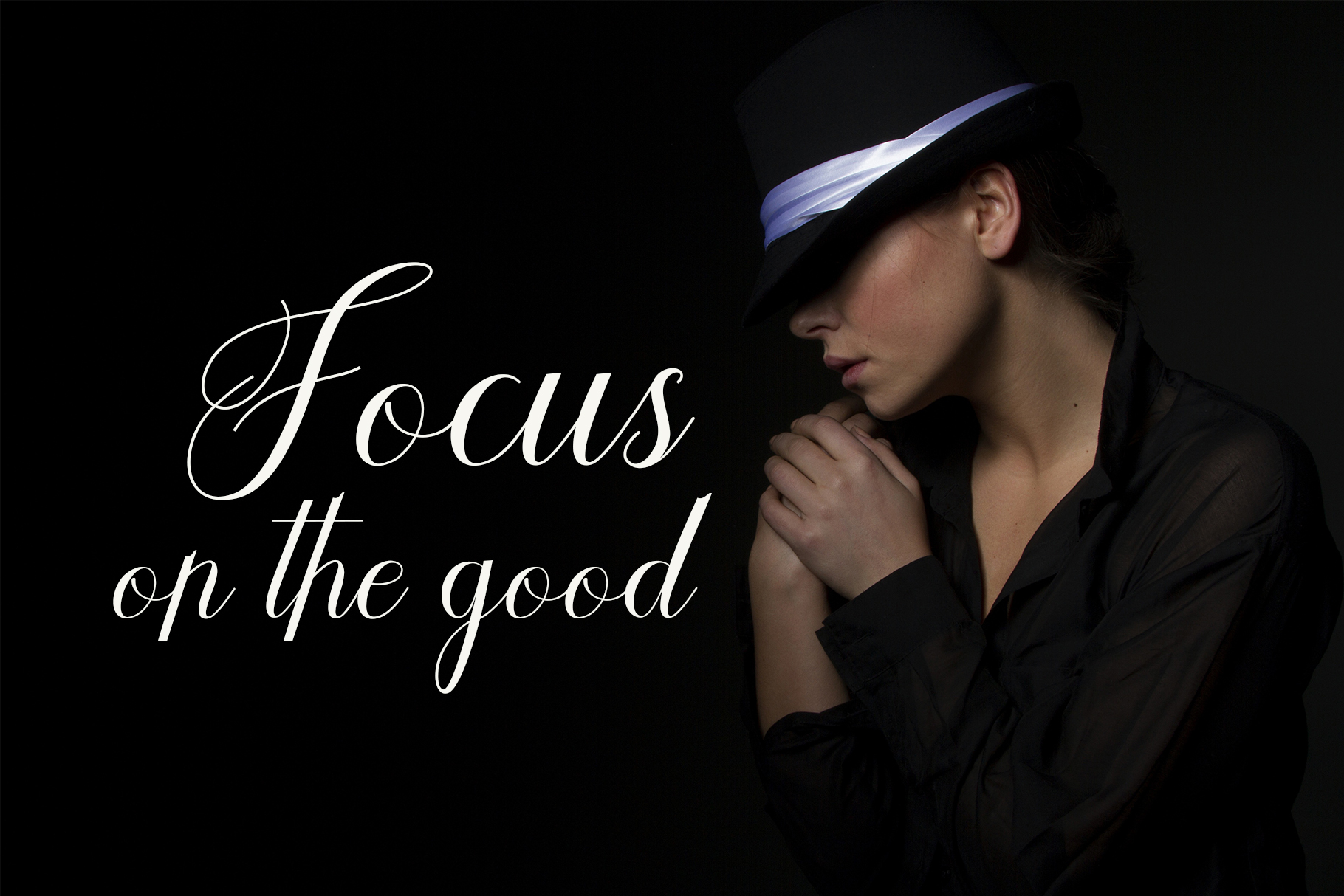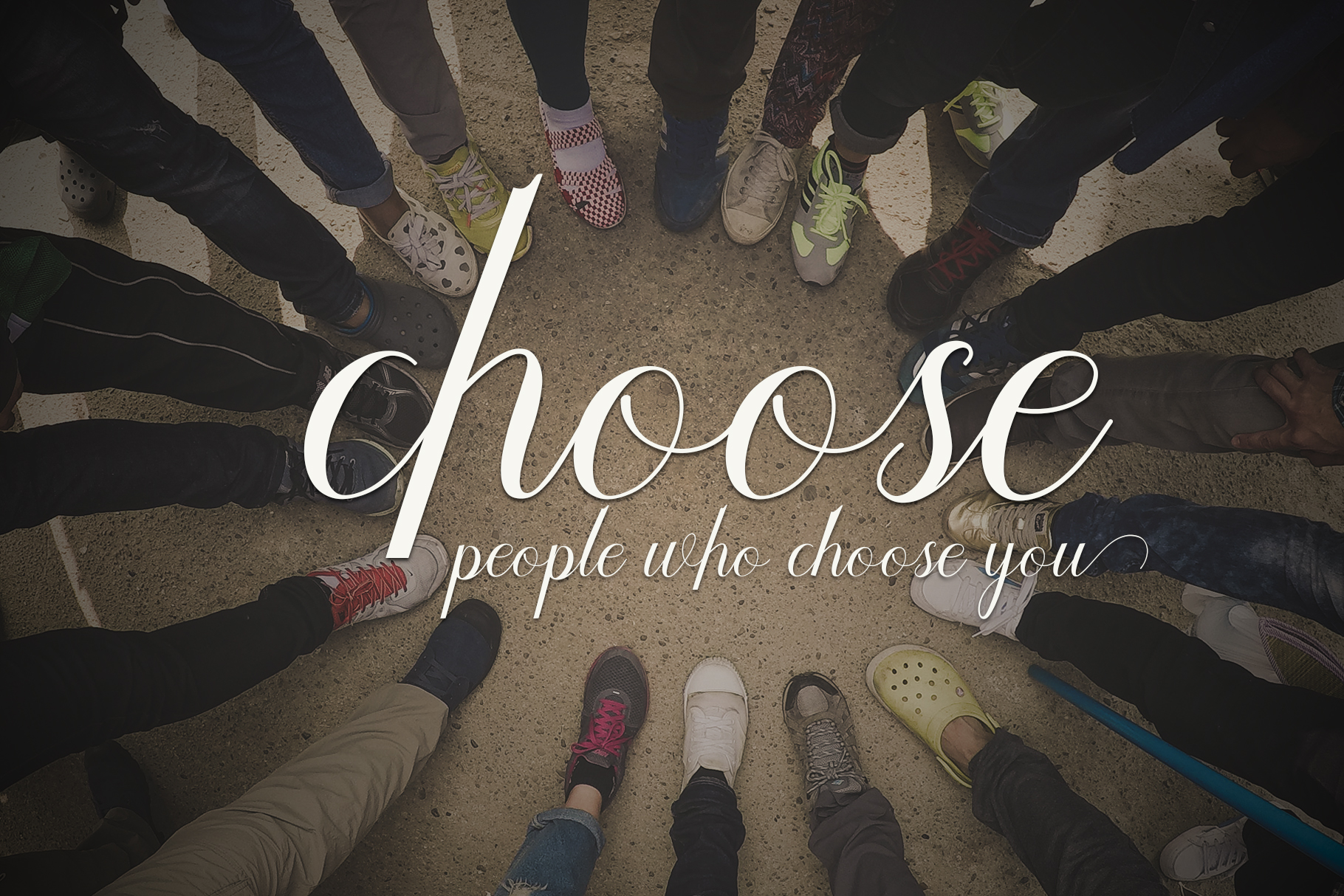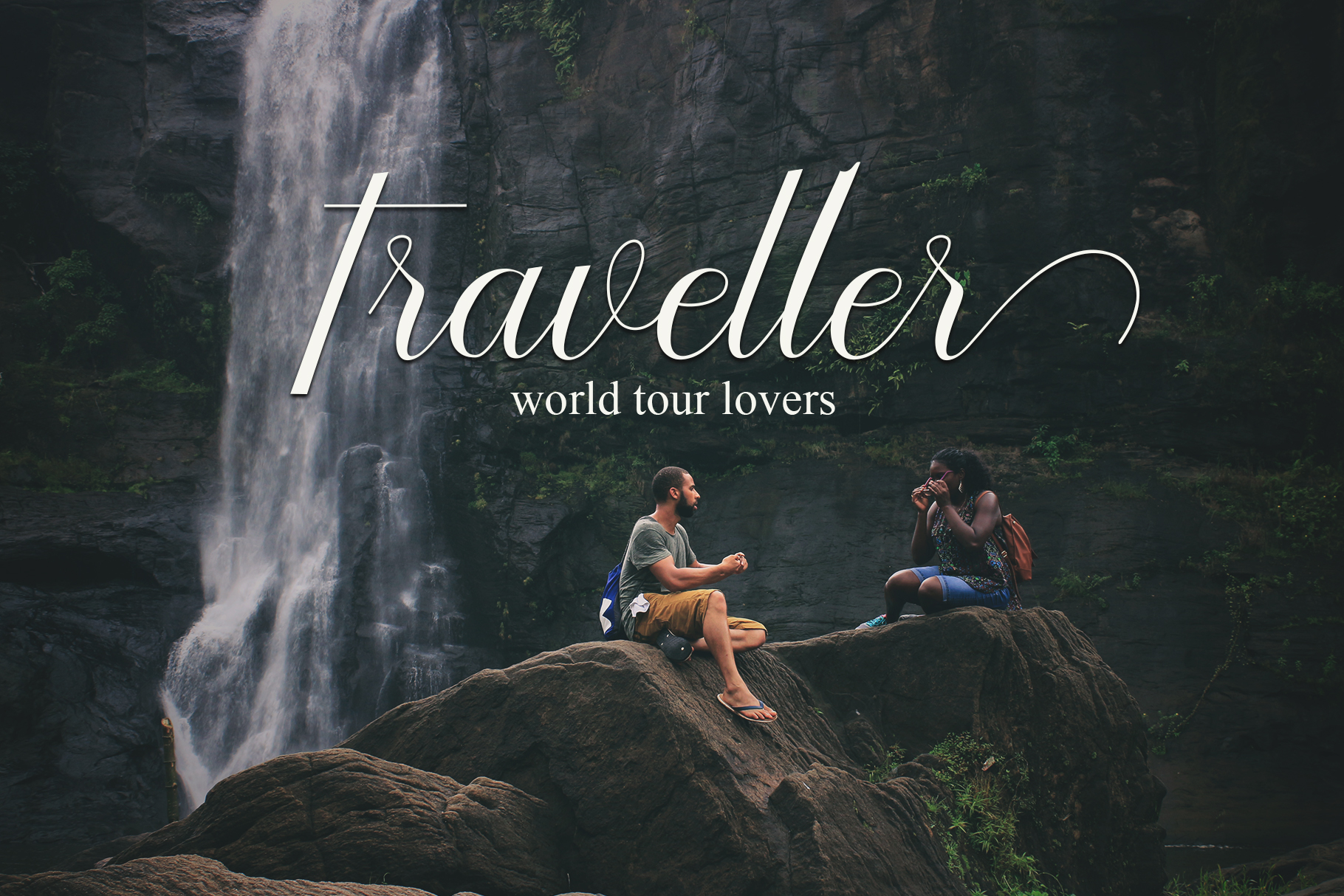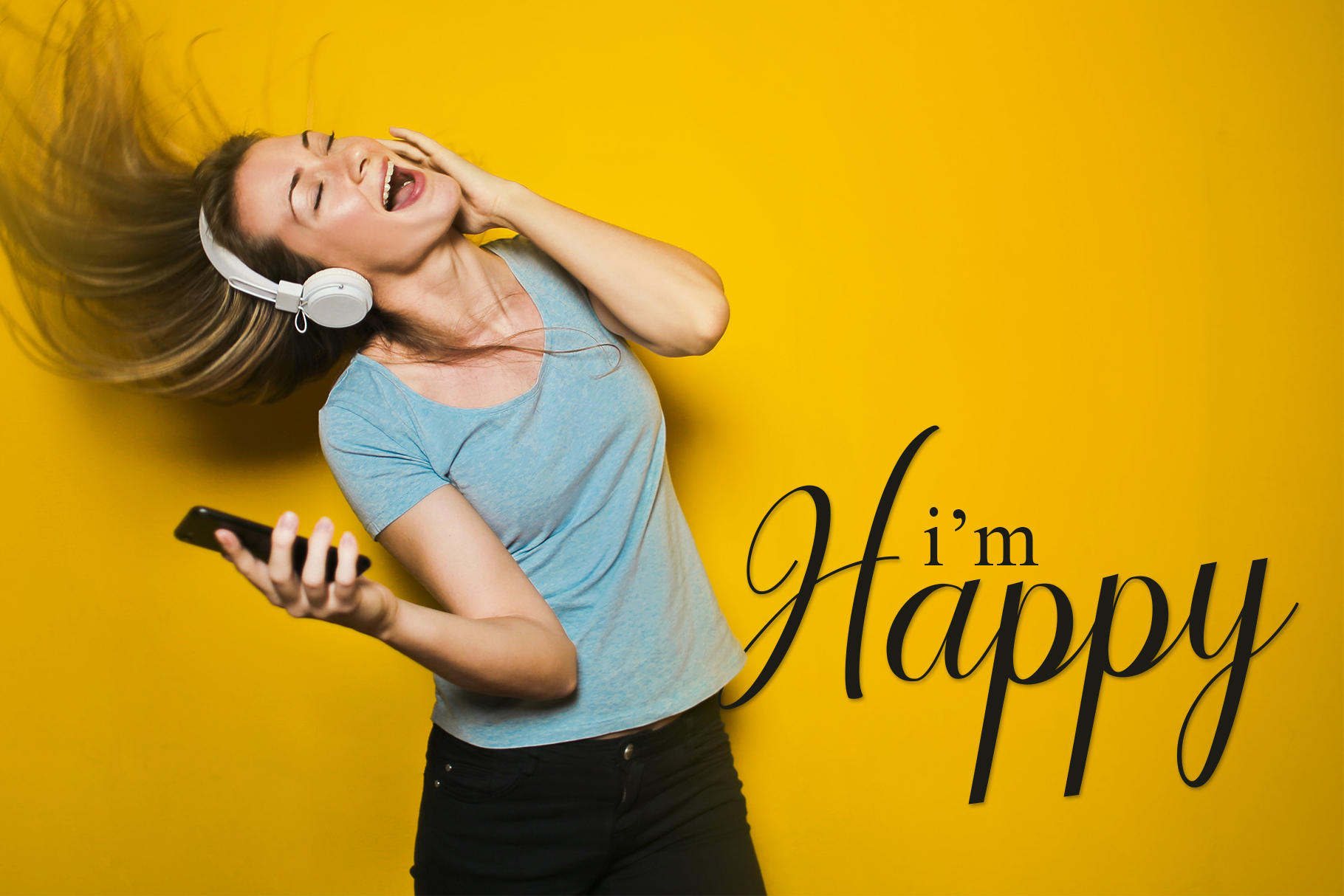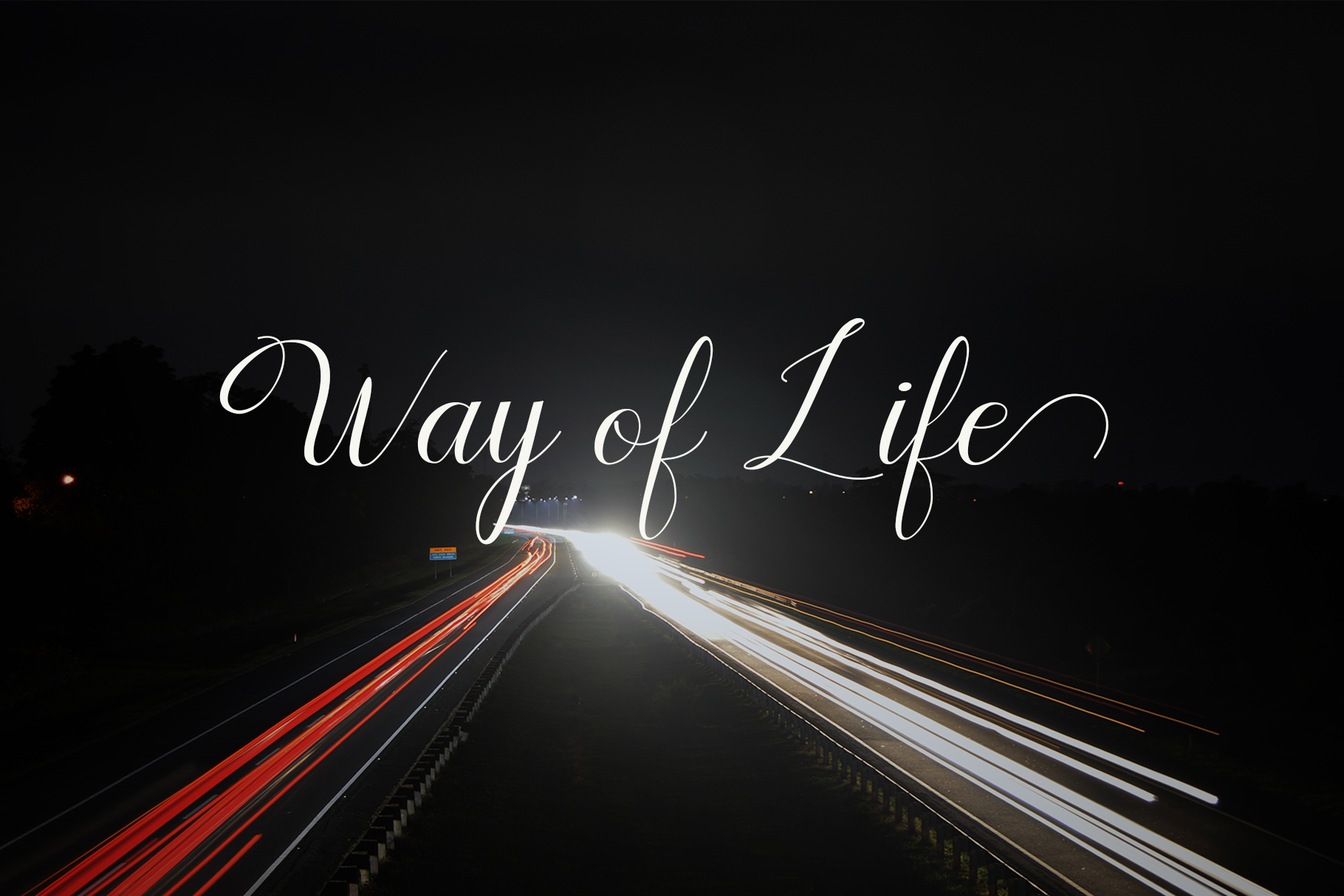
Introduction to Humilde Font
Have you ever stared at a blank page, waiting for the perfect font to bring your creative vision to life? That’s exactly what happened to me the last time I was working on a design project. I needed a font that exuded warmth and friendliness, something that would make my design stand out from the crowd. That’s when I stumbled upon the Humilde Font, a beautiful script font that instantly captured my heart.
As a designer, I can attest that finding the right font can make all the difference in a project’s success. The Humilde Font is more than just a design resource – it’s a high-quality addition to any creative project. With its transparent background and endless possibilities, this font is perfect for designers who want to add a personal touch to their work.
Key Features of Humilde Font
- Unique, hand-drawn style with transparent background, ideal for adding a personal touch to designs.
- Comes with a wide range of language support, making it suitable for international design projects.
- Can be used in various design applications, including graphics, logos, typography, and more.
Honest Review: Humilde Font
Here are some of the things that work well for me:
- ✨ Unique and modern design that sets it apart from other fonts
- ✨ Suitable for both digital and print projects
- ✨ High-quality images with transparent background, making it easy to use
- ⚠️ Limited font styles available, which might be a drawback for some designers
- ⚠️ Not ideal for projects that require a lot of bold text, as it can be difficult to read
Tips for Getting the Most Out of Humilde Font
Experiment with different font sizes, colors, and styles to achieve a unique look. Use the Humilde Font in combination with other design elements to create a visually appealing design. For a more professional look, pair the font with a high-quality image or graphic.
The Humilde Font is suitable for a variety of creative projects, including logos, business cards, brochures, and social media graphics. Its high quality and transparent background make it an ideal choice for designers looking to create visually appealing designs with ease.